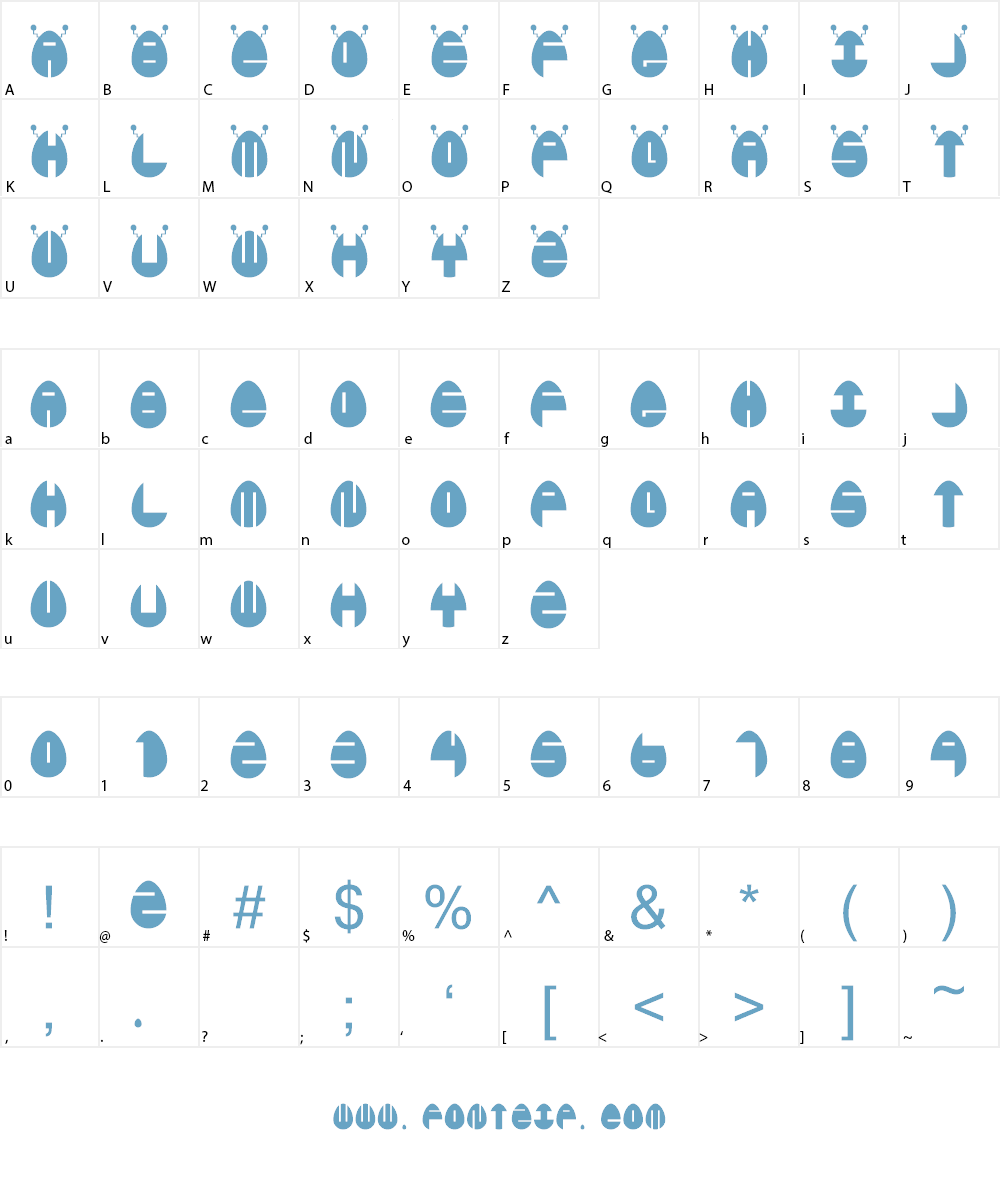
Egglien is a monospaced font originally designed for TECHS, the Tulane University Engineering and Computer Science Honor Society. I needed a font that evoked two things: science fiction, and eggs. So, here it is if you're into that sort of thing.
First public release. Uppercase and lowercase letters, numerals, and the period are included.